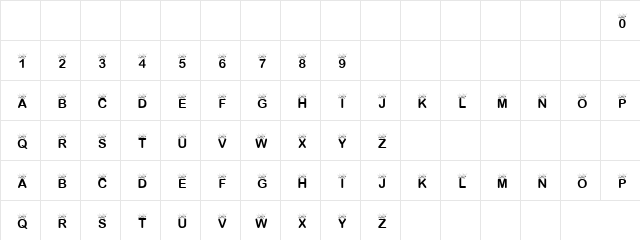
Souda Regular
Design Context for Souda Typeface
Souda offers clean, dependable letterforms without strong stylistic allegiance, making it a practical choice for designers who need flexibility.